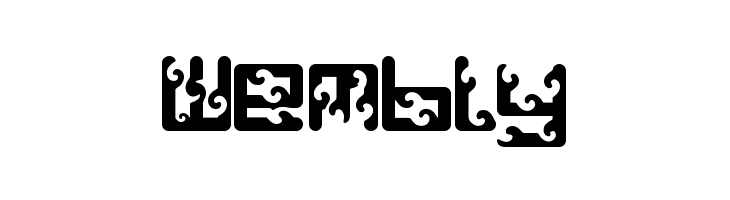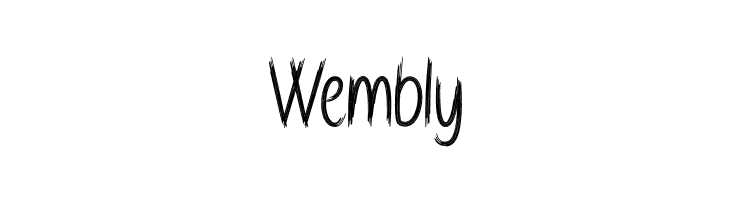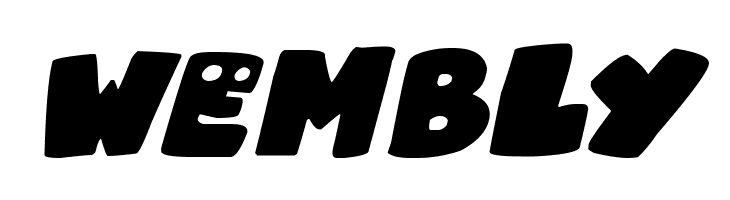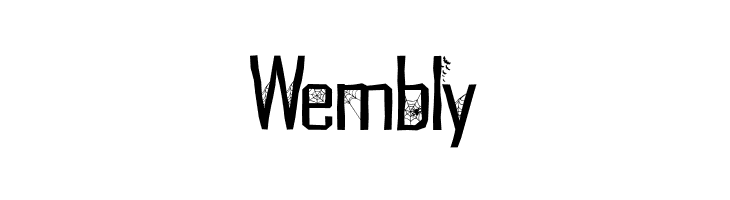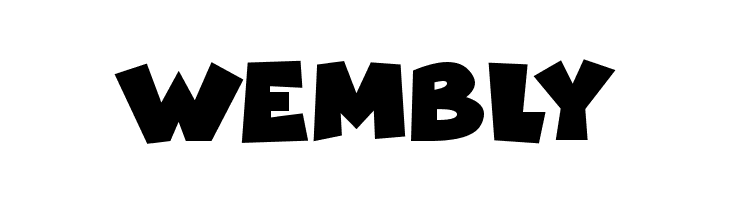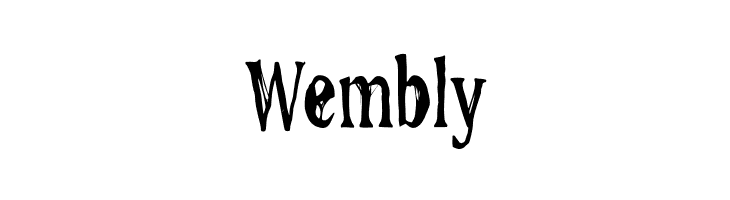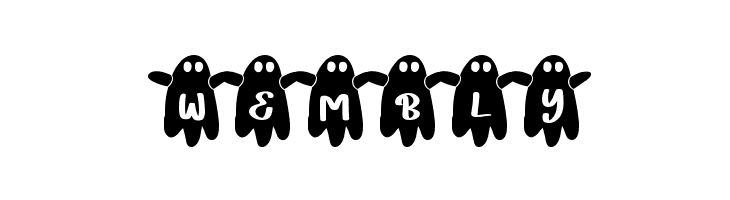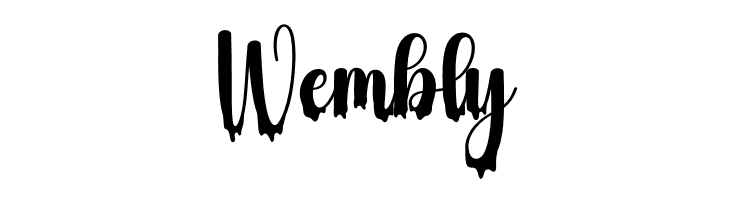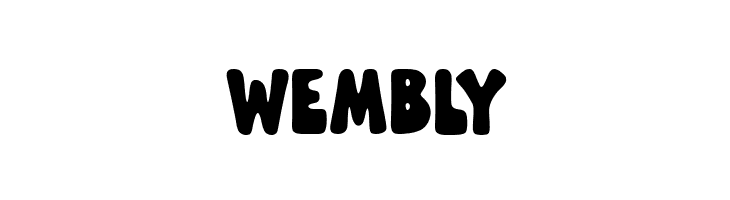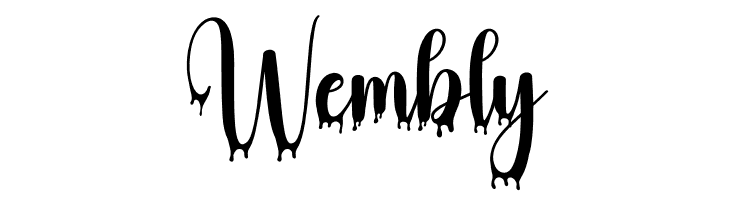
A spooky, dripping font perfect for Halloween-themed designs.
A spooky, jagged font perfect for Halloween themes.
A bold, Halloween-themed font with playful, spooky elements and an italicized slant.
A spooky, Halloween-themed decorative font with ghostly and webbed elements.
A bold, playful font with a spooky, Halloween-inspired design.
A spooky, distressed font ideal for Halloween and horror themes.
A playful, ghost-themed decorative font perfect for Halloween projects.
Dripping, spooky hand-drawn script with bold, playful strokes.
Bold, rounded, spooky display font with playful character shapes.
A dripping, spooky script font with a playful Halloween vibe.
Playful, spooky hand-drawn display font with irregular strokes.
Tall, narrow, dripping decorative font with a spooky vibe.